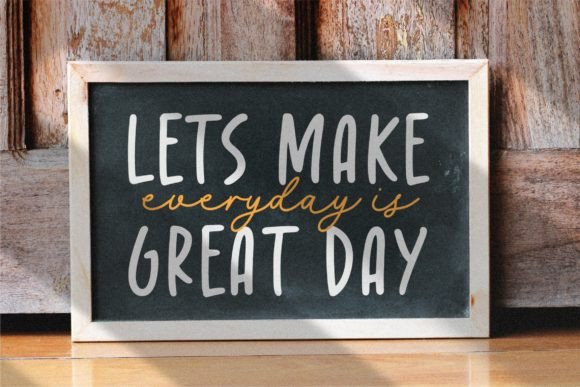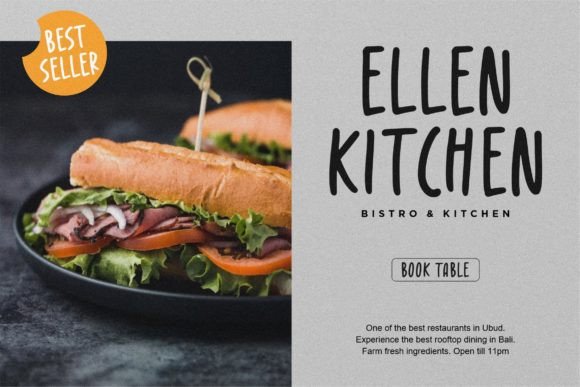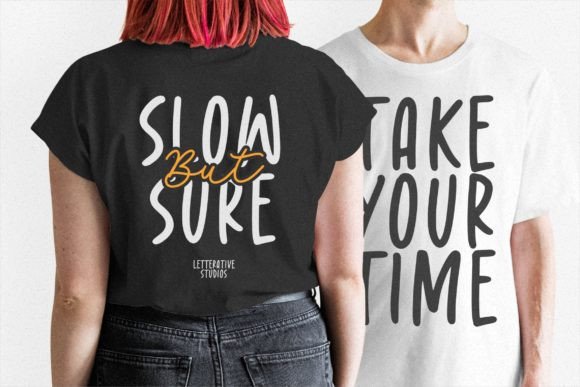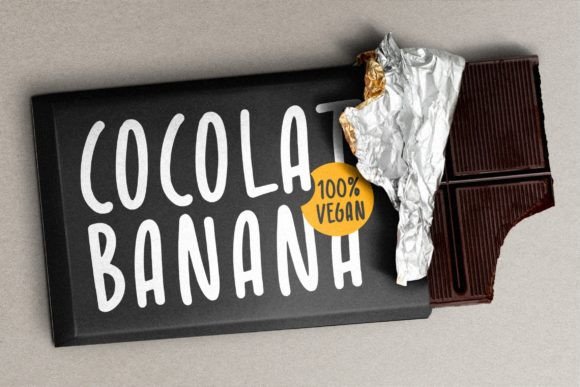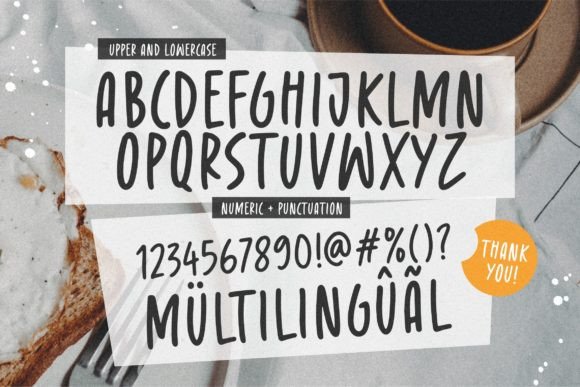
Introduction to Morning Bread Font
Imagine you’re sipping your morning coffee, surrounded by the quiet morning light, and you need a font that captures the essence of this serene moment. That’s where the Morning Bread Font comes in – a delightful, handwritten brush font that will make your creative projects shine. Whether you’re designing a logo, a social media post, or a marketing campaign, this font will add a touch of warmth and personality to your work.
As a valuable design resource, the Morning Bread Font is perfect for anyone looking to elevate their creative project with a high-quality, unique font. Its transparent background makes it easy to use on any design surface, and the free download option means you can start using it right away. With its trendy and stylish vibe, this font is sure to become a staple in your design arsenal.
Key Features of Morning Bread Font
- High-quality, hand-drawn design with a warm and inviting aesthetic, perfect for creative projects.
- Features a large character set, including uppercase and lowercase letters, numbers, and punctuation marks, making it suitable for extended use.
- Unique characteristics include subtle texture and imperfections, adding a touch of organic feel to any design project.
Honest Review: Morning Bread Font
I recently had the chance to try out the Morning Bread Font, and I must say, it’s been a game-changer for my creative projects. As a designer, I’m always on the lookout for high-quality design resources that can elevate my work, and this font definitely delivers.
What works well is the Morning Bread Font’s versatility. It’s perfect for a wide range of creative projects, from branding and marketing materials to editorial content and social media graphics. The font is available for free download, making it an excellent addition to any designer’s toolkit.
- ✨ High-quality design that’s perfect for various creative projects
- ✨ Suitable for branding, marketing, editorial content, and social media graphics
However, I do have one limitation to note: the font has a transparent background, which can make it challenging to use in certain situations. This is not necessarily a deal-breaker, but it’s something to be aware of when working with the font.
Overall, I’m really impressed with the Morning Bread Font. It’s a great addition to any designer’s toolkit, and its high-quality design makes it perfect for a wide range of creative projects.
Morning Bread Font is a high-quality design resource perfect for any creative project. This beautiful font features a transparent background, making it ideal for overlaying on images or using as a standalone text element.
Morning Bread Font is perfect for:
• Social media graphics
• Blog posts and articles
• Business cards and brochures
• Wedding invitations and event materials